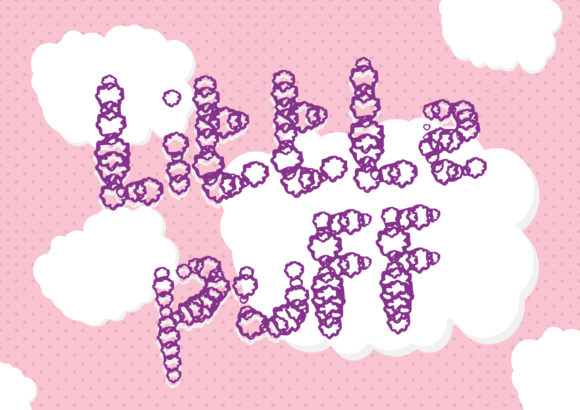
Embark on a typographic adventure with Little Puff Font, the digital display font that's anything but ordinary. Its playful and quirky design adds a touch of whimsy to your digital creations, making them stand out from the crowd. Whether you're crafting logos, posters, social media graphics, or website designs, Little Puff Font is your go-to choice for captivating visuals.
With its eye-catching letterforms and distinctive personality, Little Puff Font brings life to your digital displays. Its unique curves and swashes add a touch of elegance and sophistication, while its bold and playful style ensures maximum impact. Whether you're targeting a youthful and vibrant audience or aiming for a more whimsical and lighthearted tone, Little Puff Font effortlessly conveys your message with flair.
Little Puff Font is incredibly versatile, adapting seamlessly to a wide range of design projects. Its playful charm shines through on posters and flyers, adding a touch of fun and personality to your marketing materials. It brings a touch of whimsy to social media graphics, making your posts stand out in the crowded digital landscape. And when it comes to website design, Little Puff Font adds a touch of uniqueness and character that keeps visitors engaged and entertained.
So, why settle for ordinary when you can have extraordinary? Embrace the power of Little Puff Font and unlock a world of creative possibilities. Let your imagination soar as you craft captivating digital displays that leave a lasting impression. Little Puff Font is the key to unlocking your creative potential and unleashing your inner designer. Grab it today and embark on a typographic journey like no other!